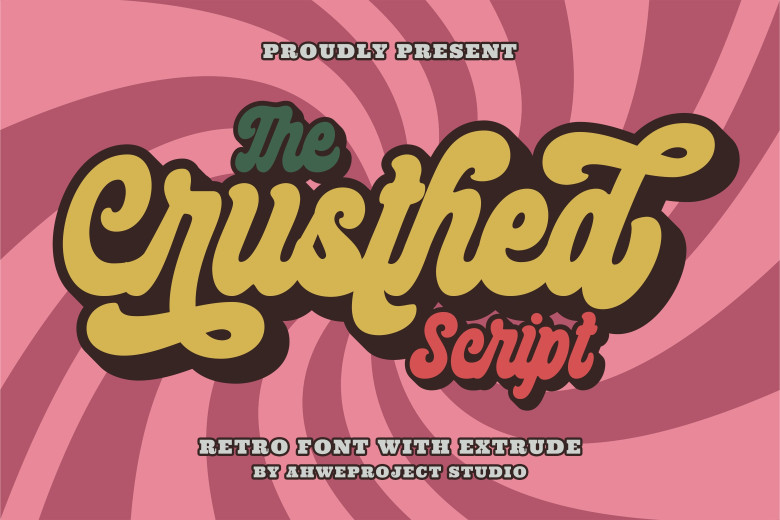
The Crusthed Font
The Crusthed comes in a bold retro style looking font. The font has both a retro and groovy feel making it a great choice for any design that should possess a wide range of ideas.
The Crusthed Display Font